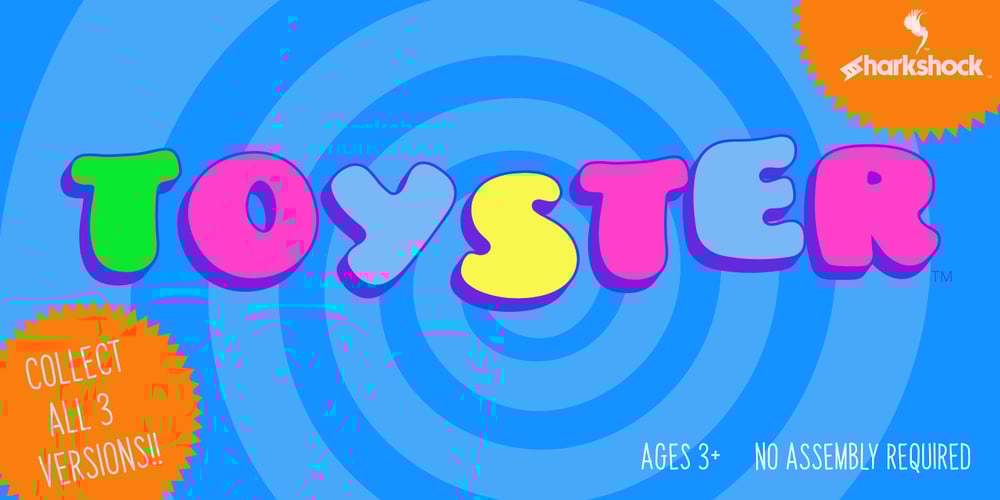
Toyster Font Family was designed by Dennis Ludlow and published by Sharkshock. Toyster contains 3 styles and family package options. Toyster is an all caps display font designed with playfulness in mind. The childlike characters are defined by their rounded corners, low contrast, and pudgy weight. Smooth contours ensure this will look great for large print projects. Use it for a children’s’ book, toy packaging, cartoon, or store signage. With 3 different versions Toyster is sure to resonate with kids and the young at heart.